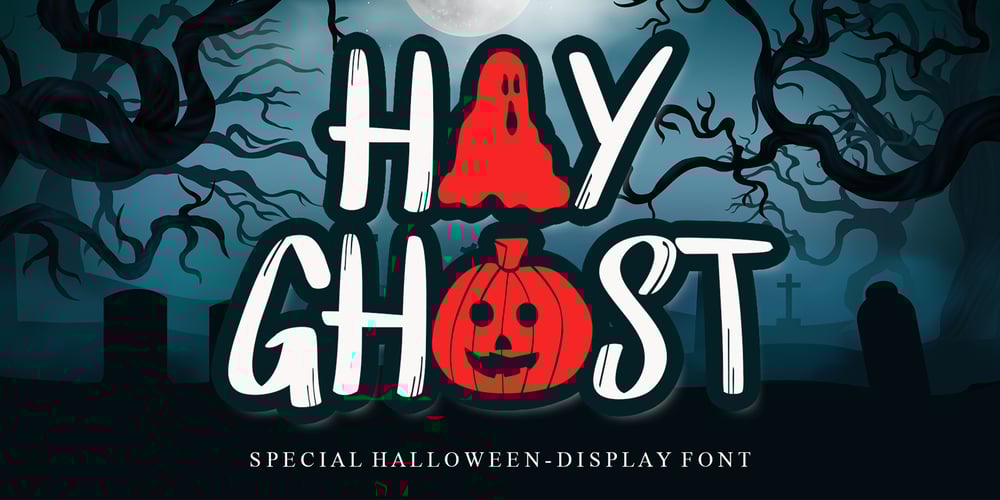
Hay Ghost Font Family was designed by Ahmad Afandi and published by Letterafandi Studio. Hay Ghost contains 2 styles and family package options. Hay Ghost is a thick-lettered and spooky display font. It is perfectly suitable for any Halloween-related project or crafty idea! This font is PUA encoded, which means that you can access all of the glyphs with ease!